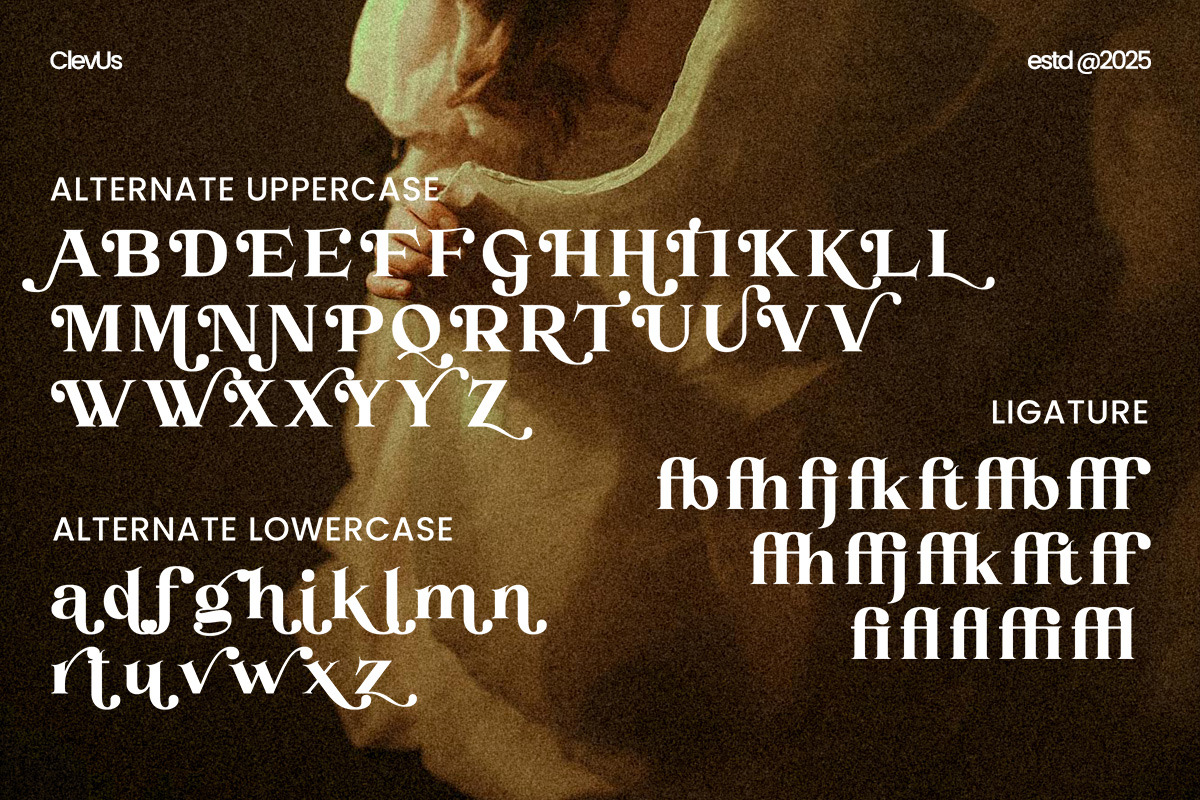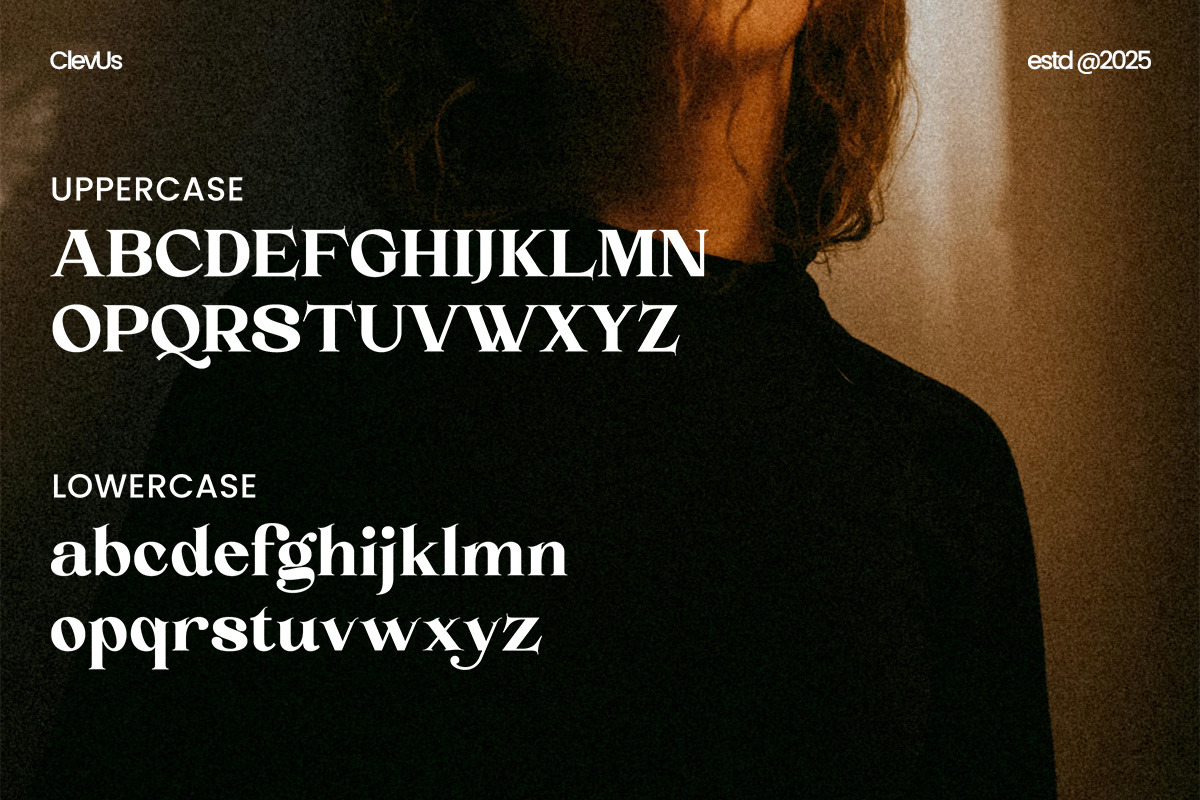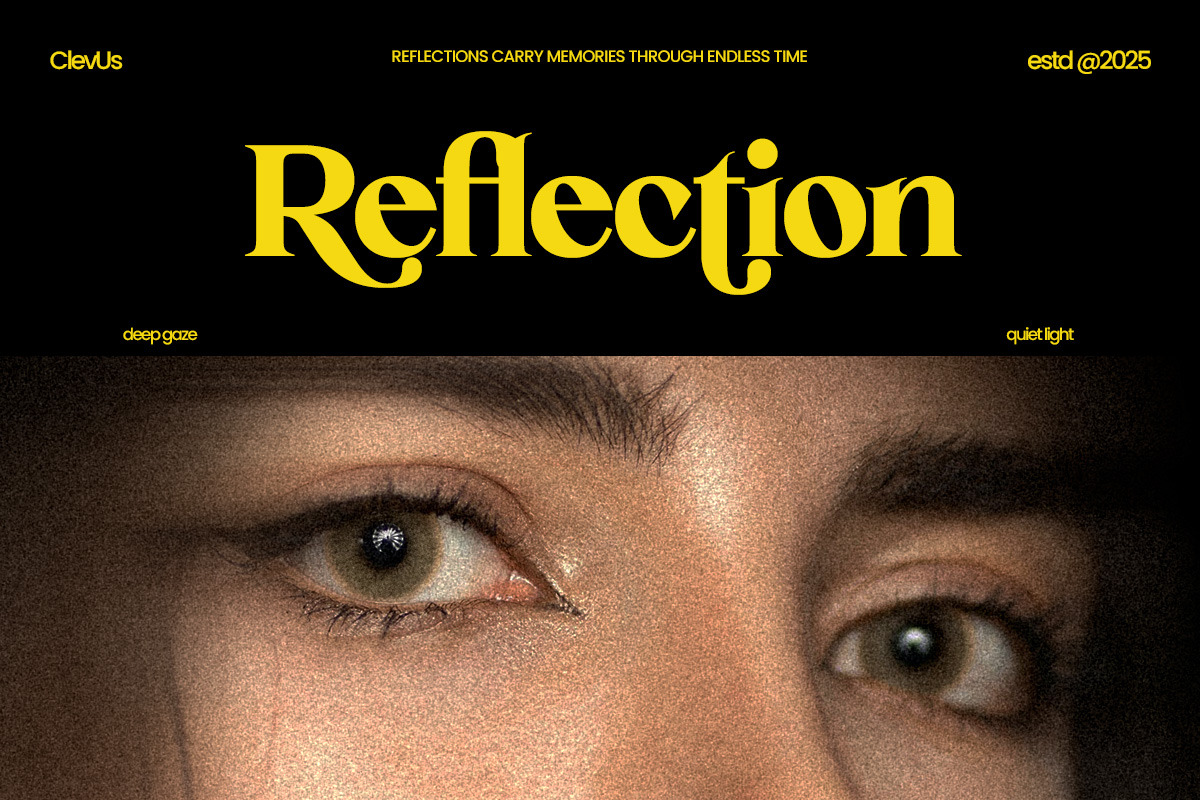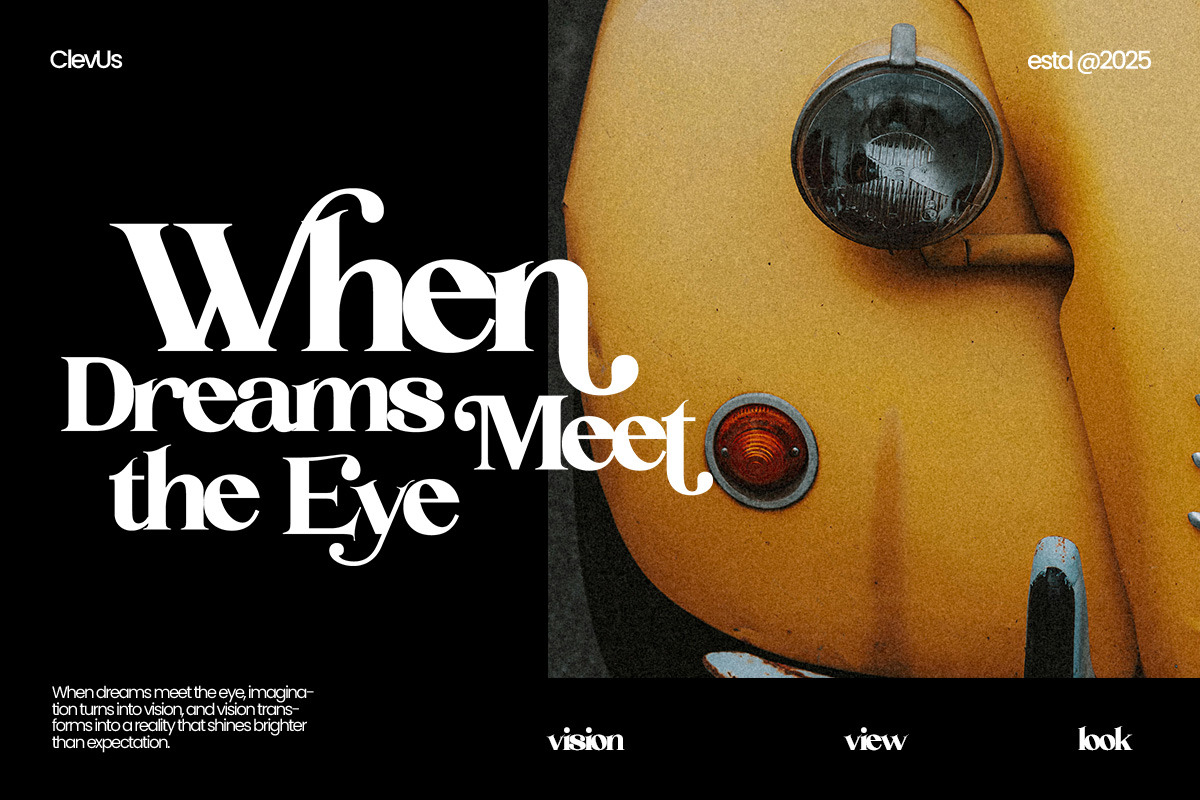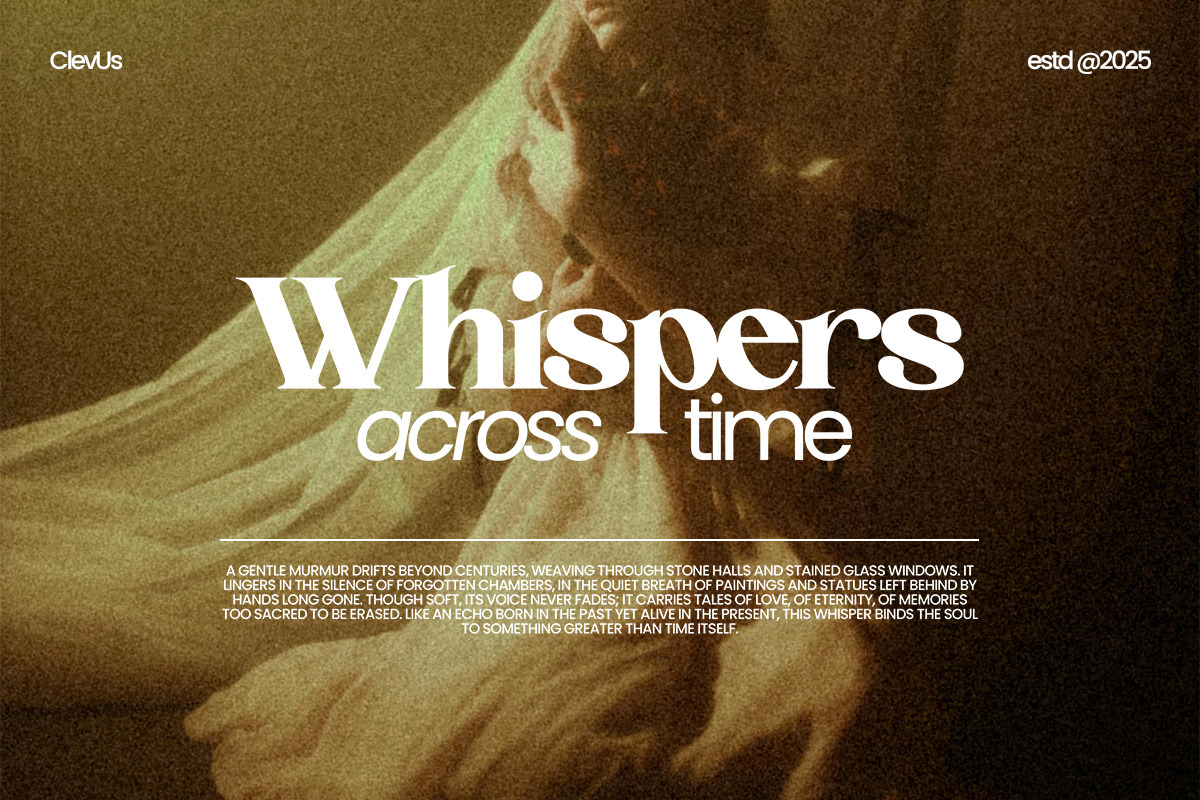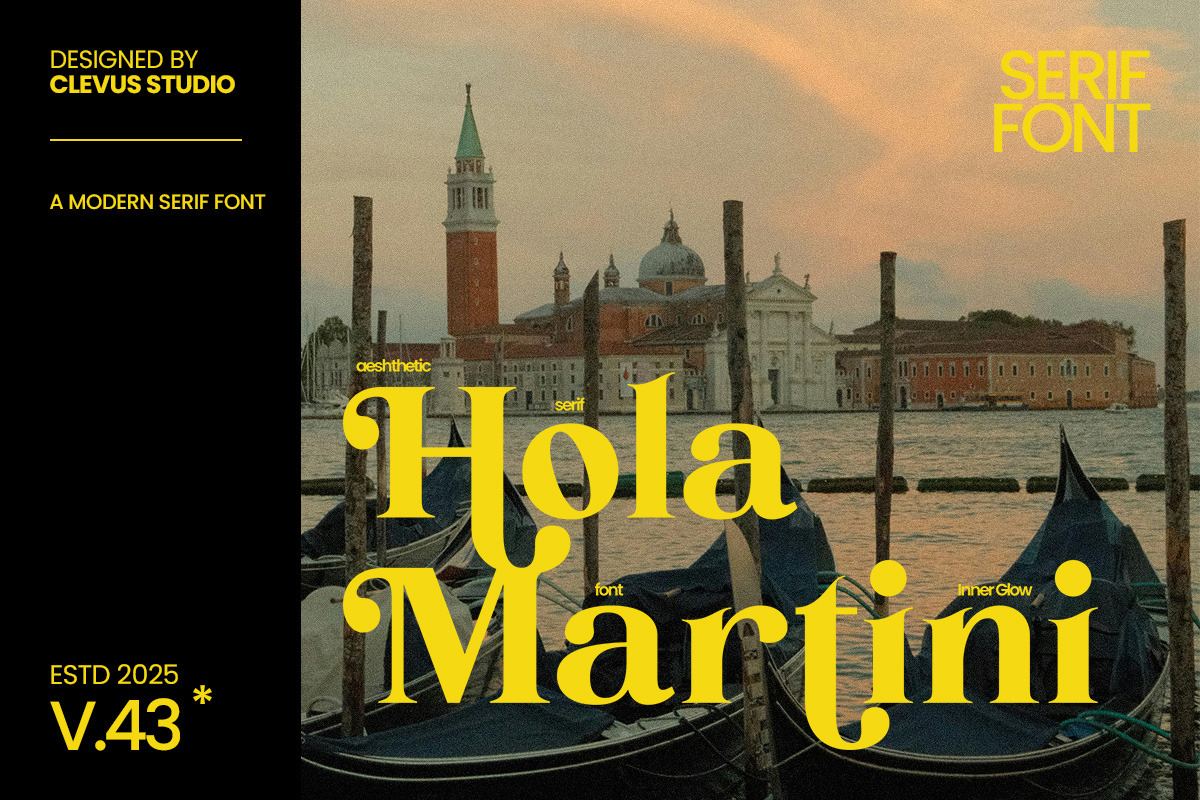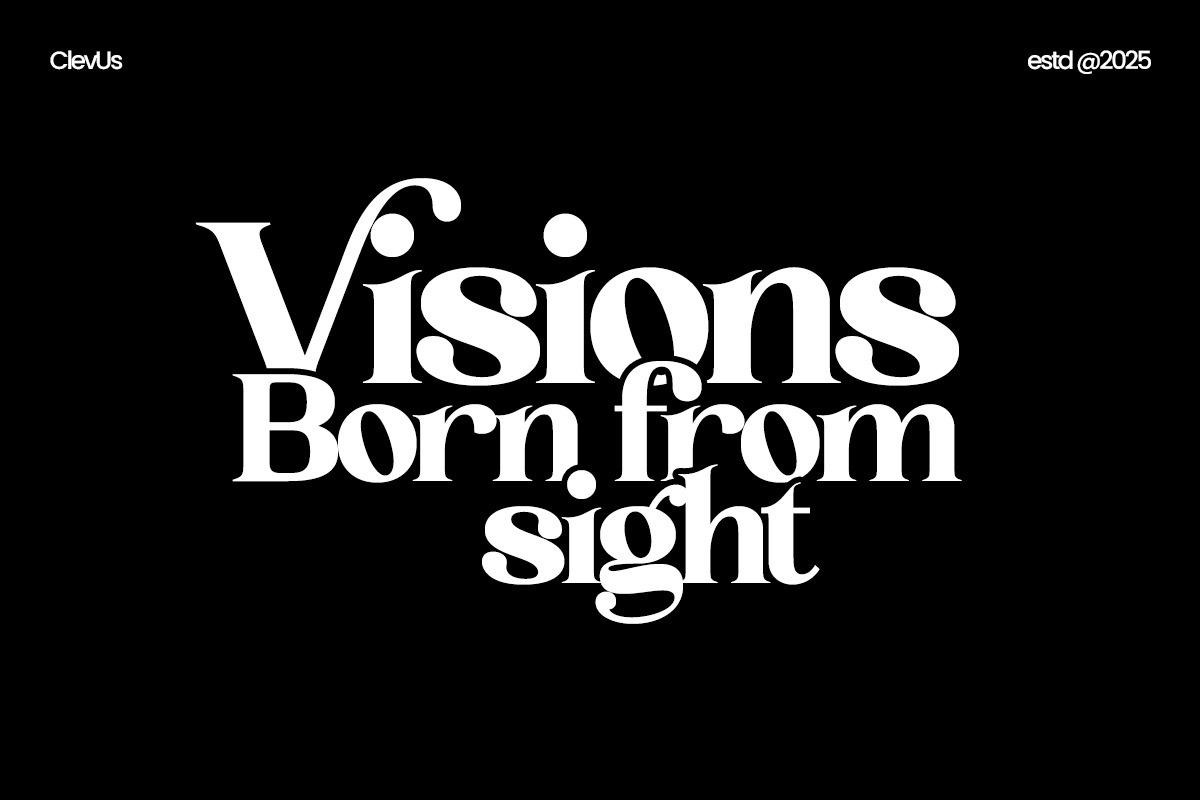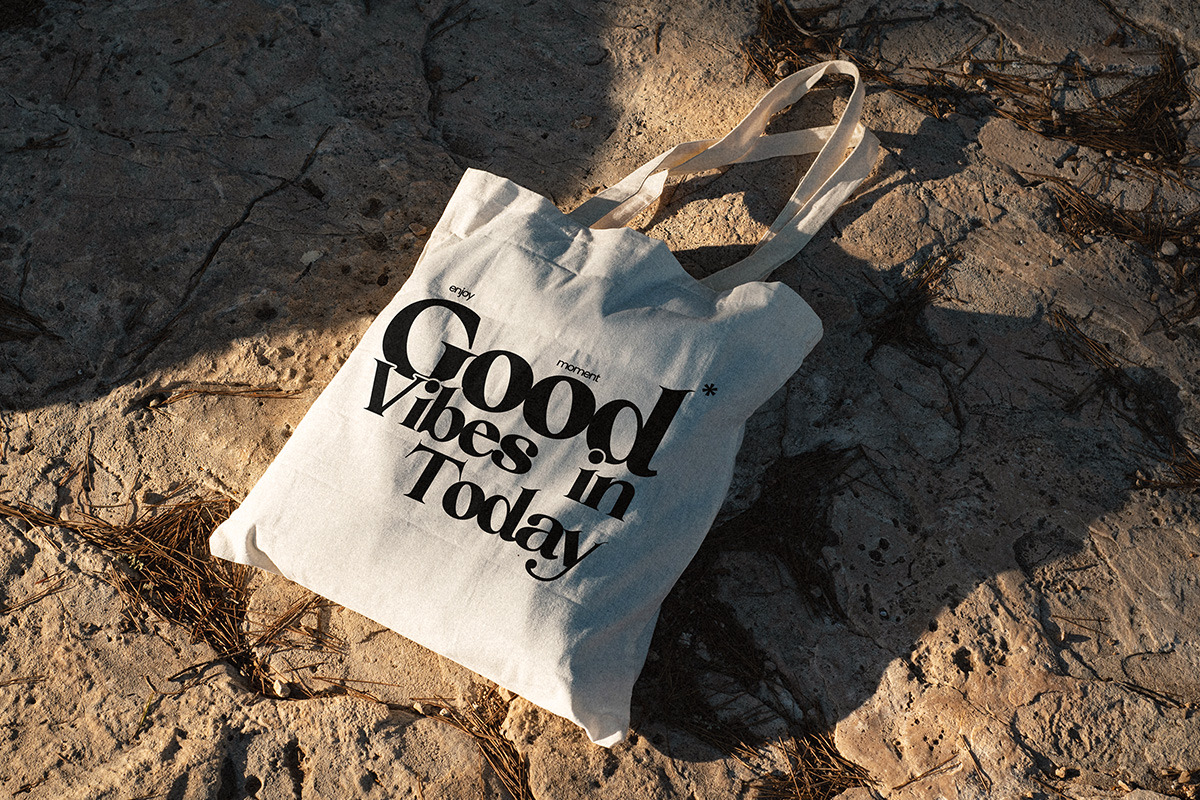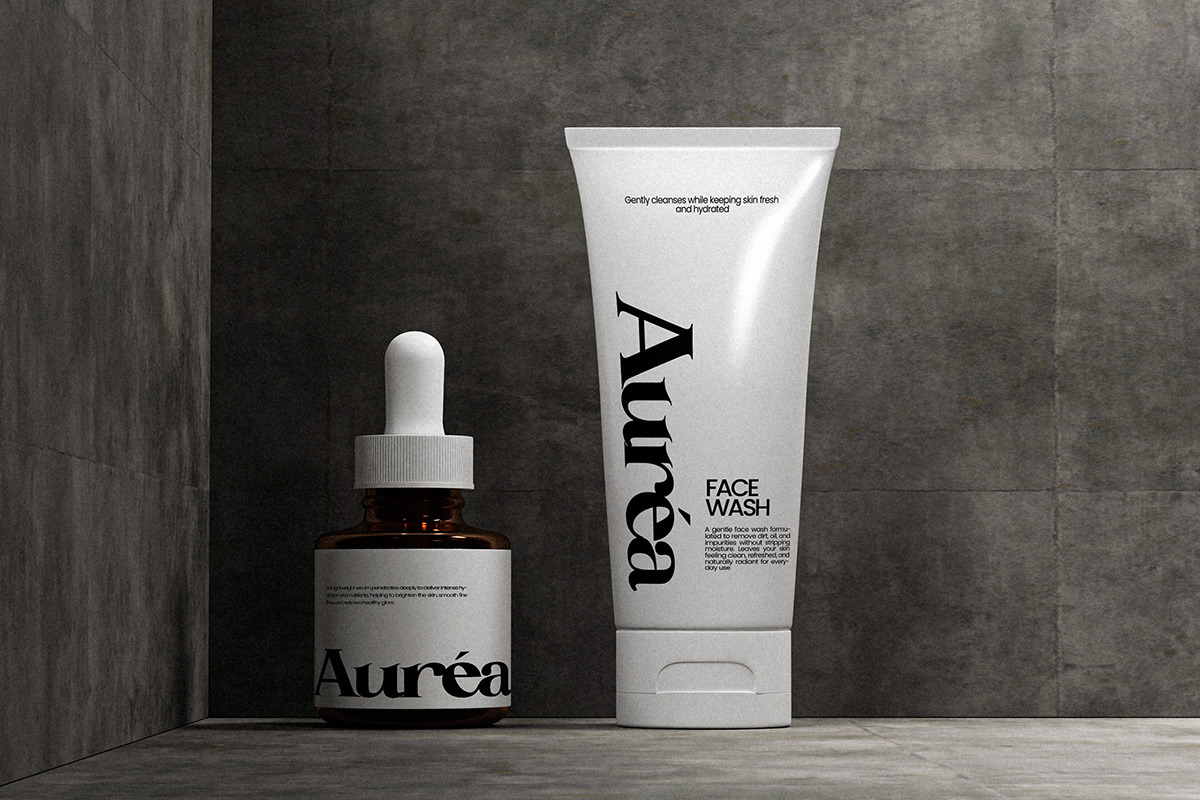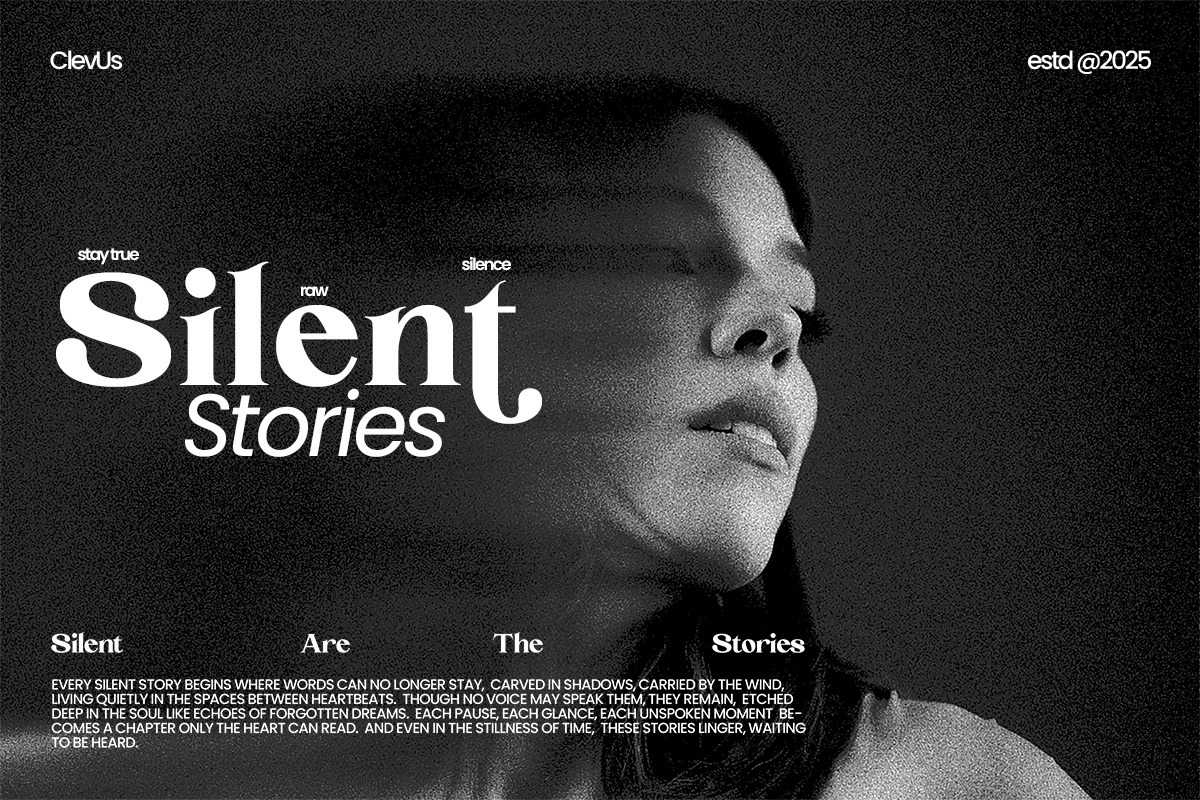
Hola Martini | Modern Serif Font
Introducing Hola Martini, a bold and playful modern serif font that brings a touch of nostalgia to your designs. Designed to elevate your brand, its modern aesthetic is versatile, making it a great choice for a wide range of projects, from packaging and advertising to editorial design and more.
- Luxury Brands: Create logos and branding that exude sophistication and elegance.
- High-end Products: Design packaging and marketing materials for premium products.
- Event Invitations: Develop stunning invitations for weddings, galas, and exclusive events.
- Upscale Marketing: Elevate your marketing materials with a touch of playful and style.
- Letters, numbers, symbols, and punctuation
- 40+ alternates and ligatures